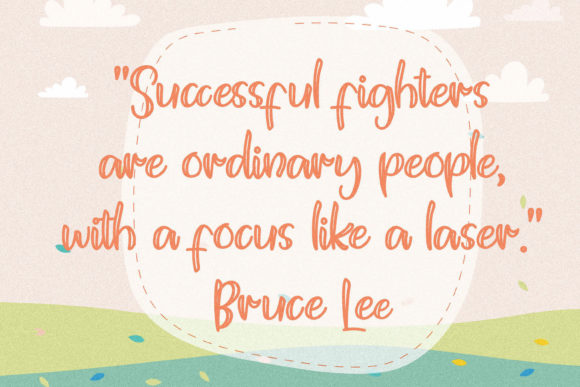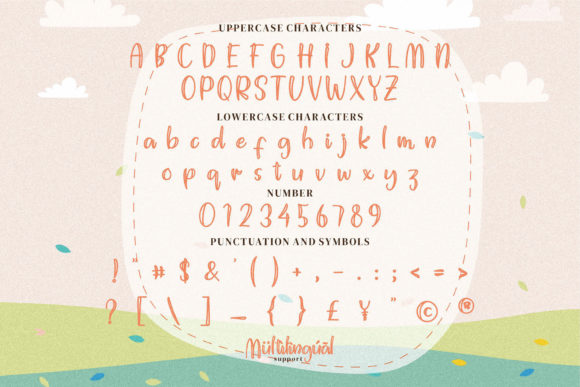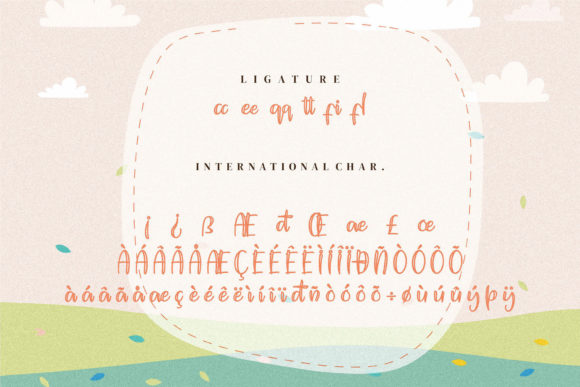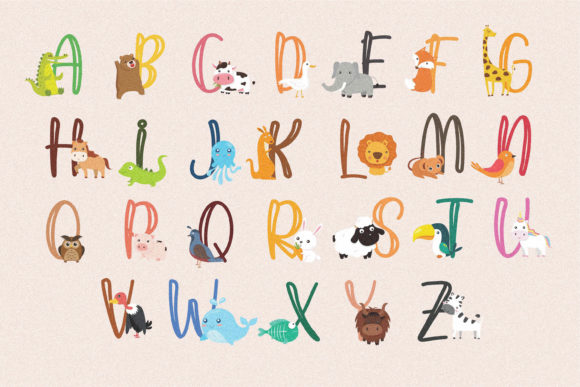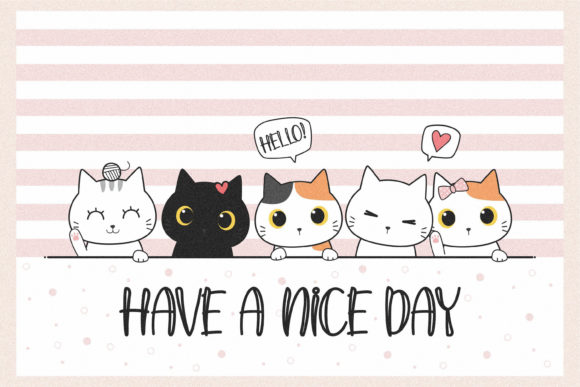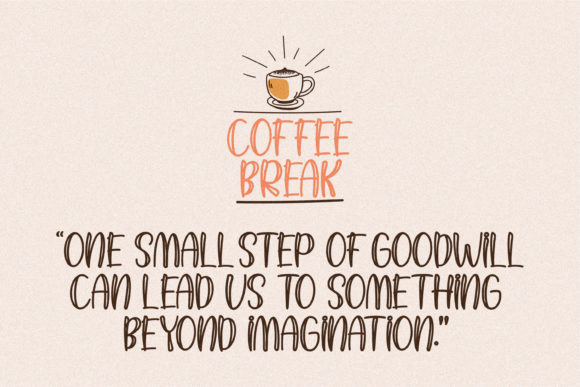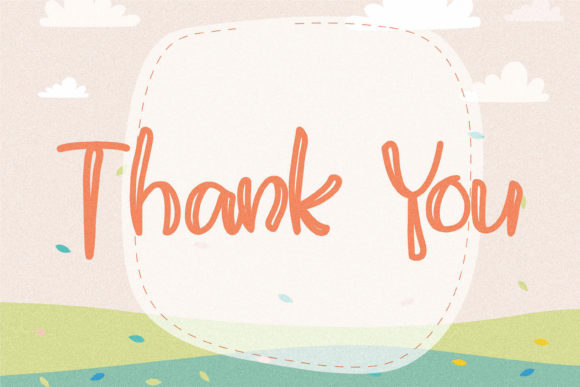
Holliday Spring Font
About Holliday Spring Font
Holliday Spring is a romantic and sweet calligraphy typeface with characters that dance along the baseline. It has a casual, yet elegant touch. It can be used for various purposes such as logos, wedding invitations, headings, t-shirts, letterhead, signage, labels, news, posters, badges and so much more.